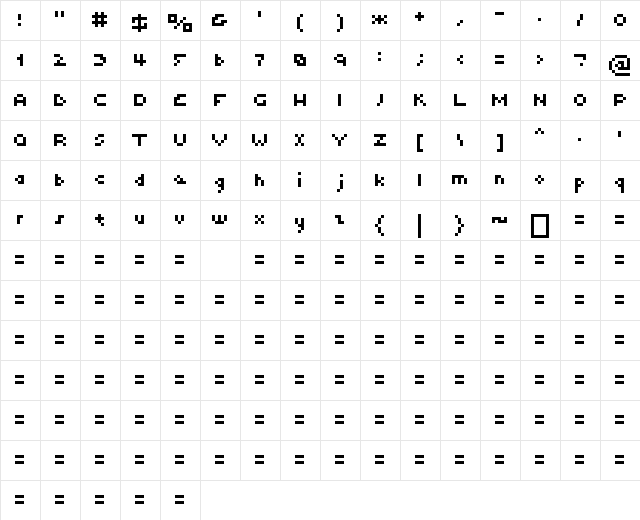
00Atomix Regular
Design Context for 00Atomix Typeface
00Atomix is a composed and adaptable typeface that performs quietly and consistently across a wide range of design contexts.